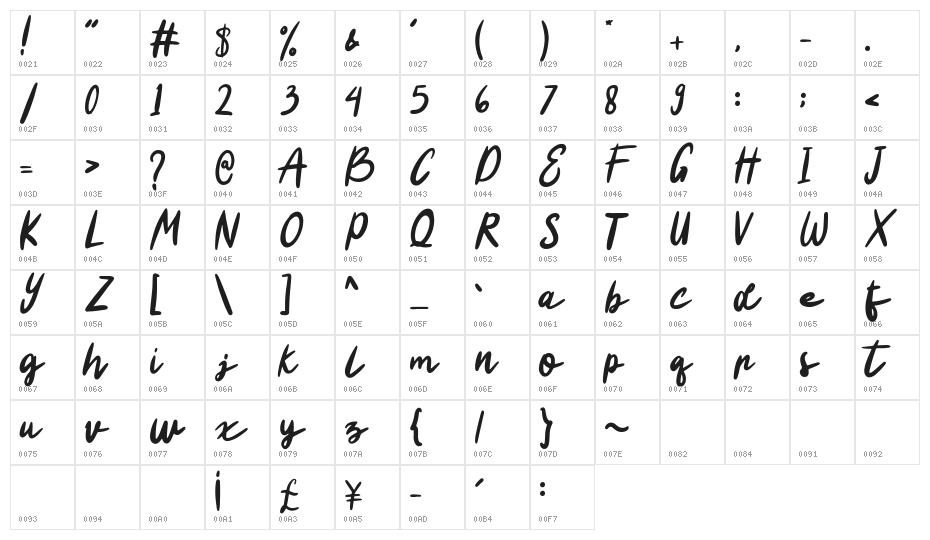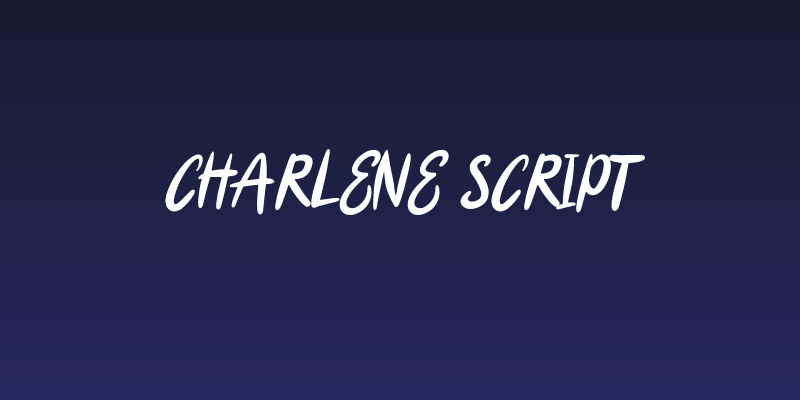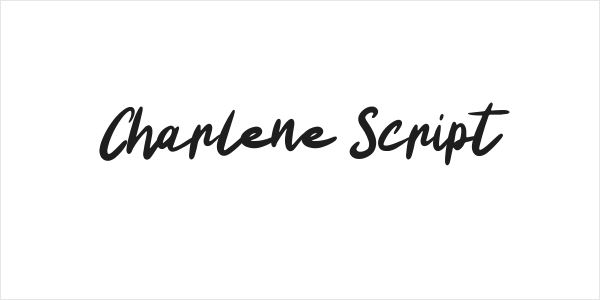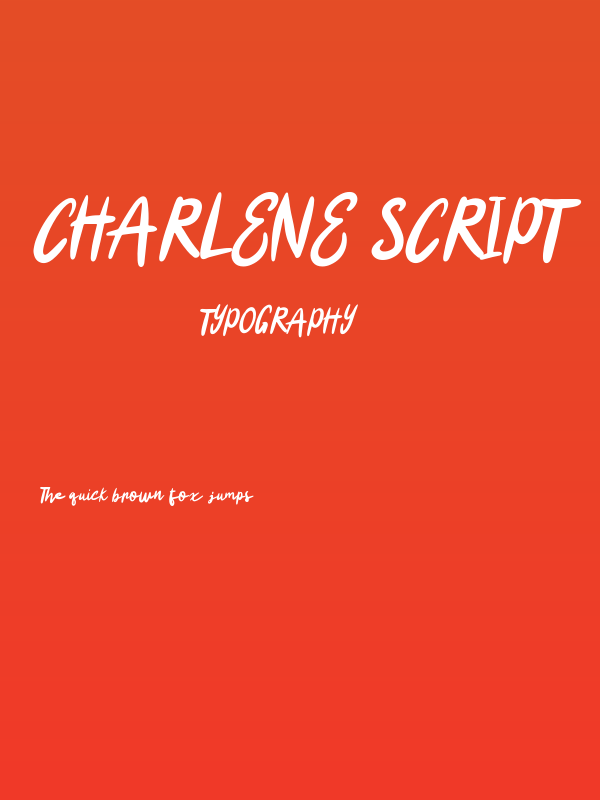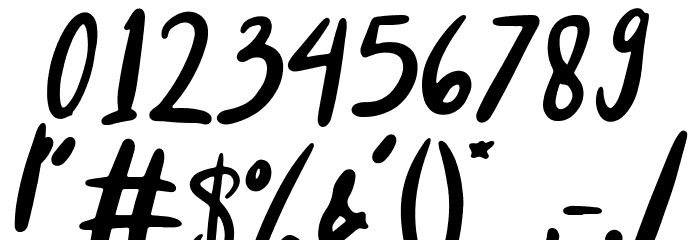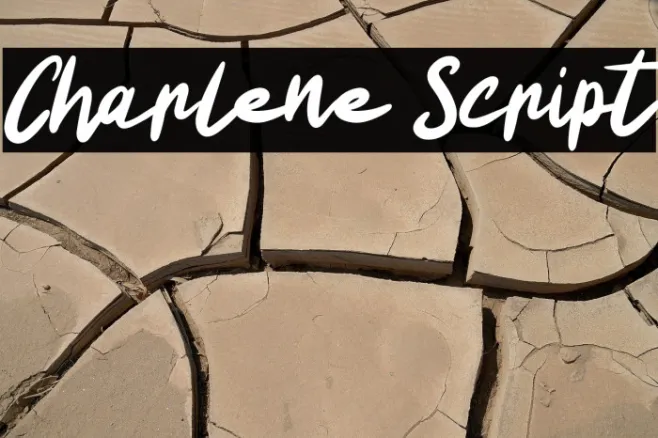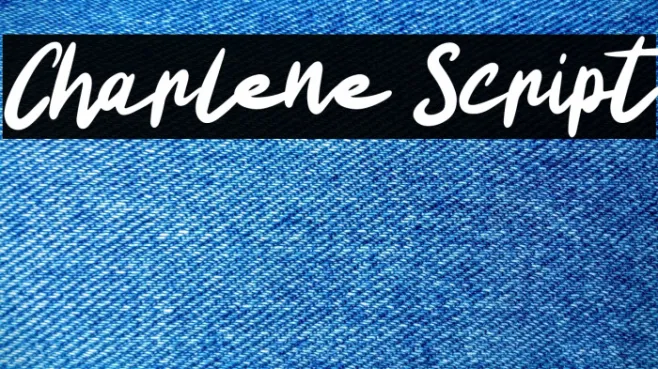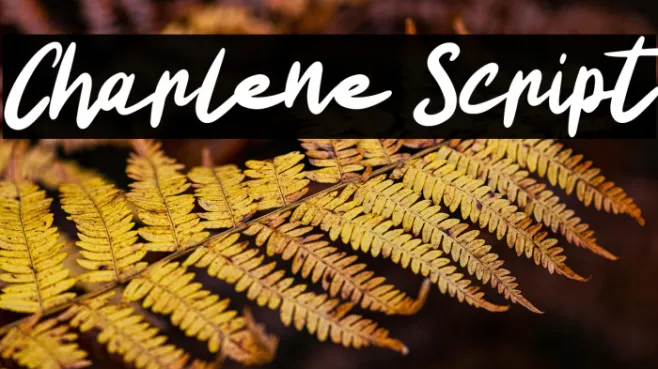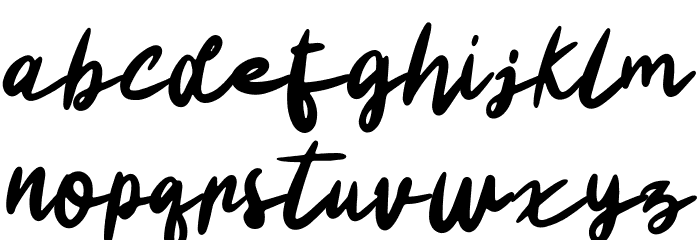
Charlene Script Font
Charlene Script Description
This script font exudes a lively and dynamic character, with its bold and fluid strokes that mimic the natural flow of handwriting. The uppercase letters are slightly slanted, giving a sense of movement and energy, while the lowercase letters maintain a consistent rhythm. The numerals and special characters are crafted with the same attention to detail, ensuring a cohesive look across all glyphs. The font's playful yet elegant style makes it versatile for various design applications, from invitations to branding materials. Its bold weight and smooth curves create a striking visual impact, making it ideal for projects that require a personal touch.